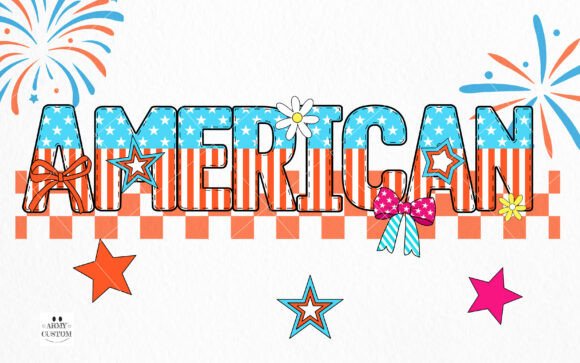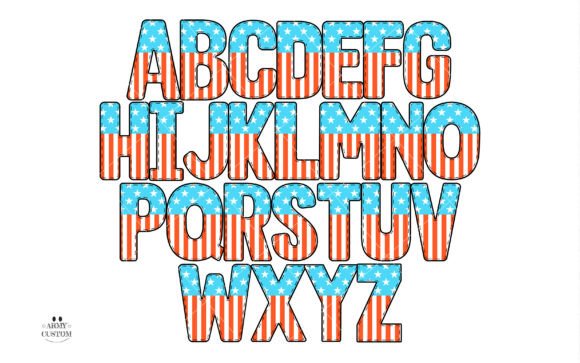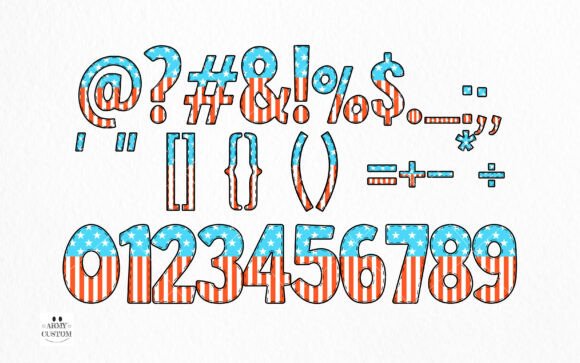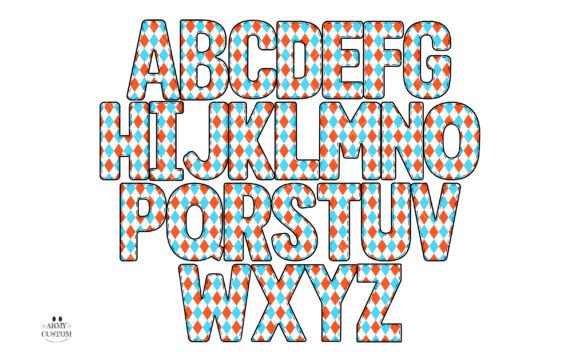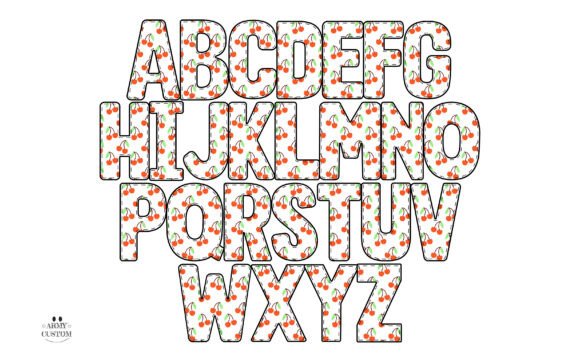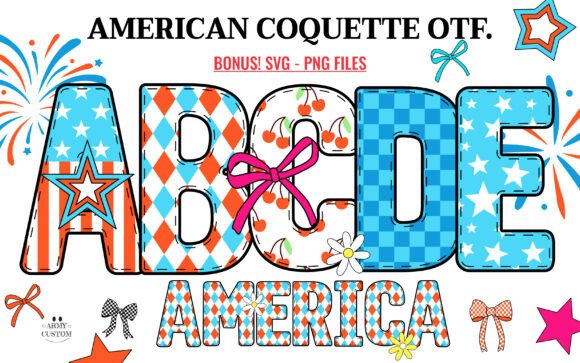
Introducing the American Coquette Font: A Patriotic Celebration in Typography
Immerse yourself in the spirit of patriotic celebrations with the American Coquette Font. True to its name, this font captures the essence of Memorial Day American in every curve and line. Uniquely designed and inspired by the heart of the United States, it embodies the charm and spirit of American aesthetics. This is not just a font; it’s a tribute to the Land of the Free, brought to life through typography.
The Essence of American Patriotism in Font Form
The American Coquette Font is more than just a collection of letters and symbols; it’s an expression of American pride and patriotism. Designed to evoke the feelings of freedom, courage, and unity, this font is perfect for any creative project that aims to celebrate American heritage. Whether you’re working on a design for Memorial Day, Independence Day, or any other patriotic-themed project, the American Coquette Font is sure to infuse an unmatched sense of patriotism into your work.
Design and Inspiration
The American Coquette Font is inspired by the classic American preppy style, with a modern twist. Its unique design combines traditional American typography with a fresh, contemporary feel, making it perfect for a wide range of creative projects. From bold and eye-catching headlines to elegant and sophisticated body text, this font is versatile and easy to use.
Key Features of the American Coquette Font
- Unique and Authentic Design: The American Coquette Font is designed to capture the essence of American patriotism and style.
- High-Quality Typography: With crisp and clear lines, this font is perfect for both digital and print applications.
- Versatile and Easy to Use: The American Coquette Font can be used for a wide range of creative projects, from flyers and brochures to social media graphics and website headers.
The American Coquette Font is a must-have for designers and crafters who want to add a touch of American patriotism to their work. Whether you’re creating custom invitations, patriotic-themed crafts, or social media graphics, this font is sure to inspire your creativity and bring your ideas to life.
- Pair it with Other Patriotic Elements: Combine the American Coquette Font with other patriotic elements, such as red, white, and blue color schemes, to create a cohesive and eye-catching design.
- Experiment with Different Sizes and Styles: Play around with different font sizes and styles to create visual interest and add depth to your design.
- Use it for Headlines and Titles: The American Coquette Font is perfect for bold and eye-catching headlines and titles.